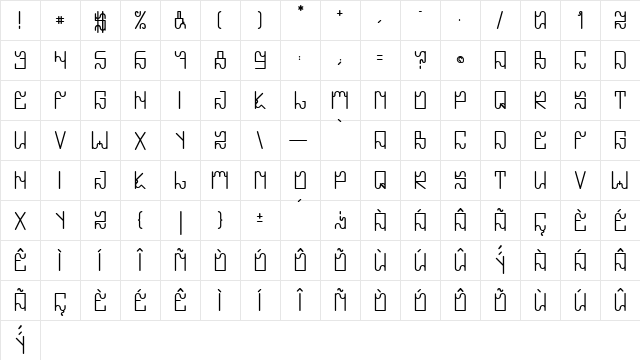
Jesus Chorou Regular
| Foundry | Du Beluco |
| Designer | Du Beluco |
Design Context for Jesus Chorou Typeface
Jesus Chorou takes a measured approach to typography — its balanced proportions and neutral character make it a reliable workhorse for both digital and print work.